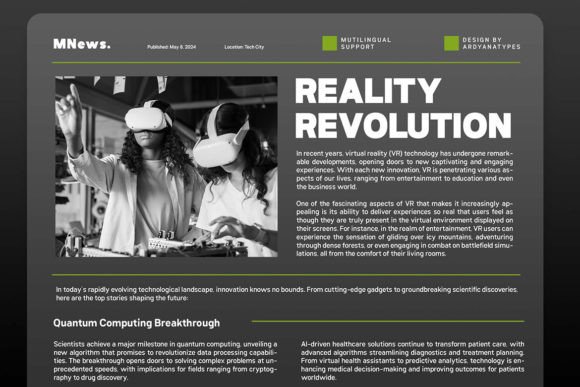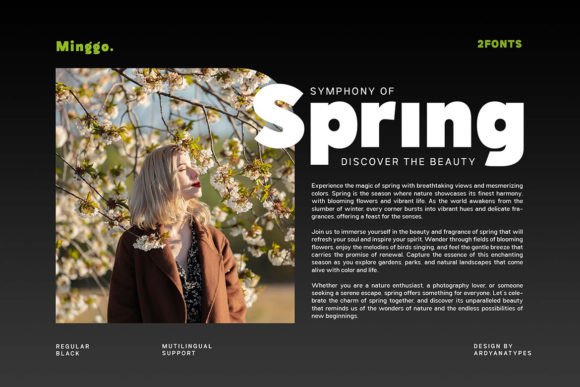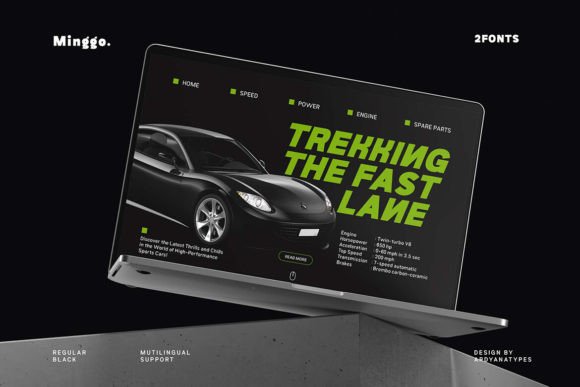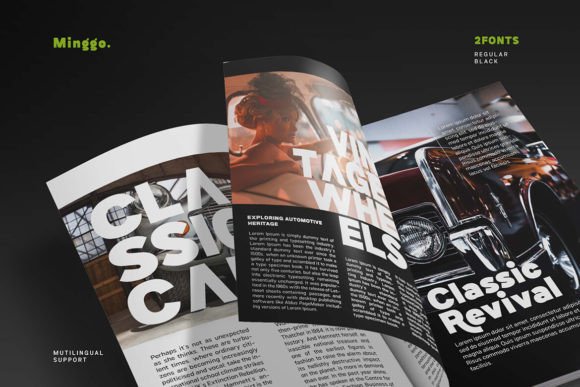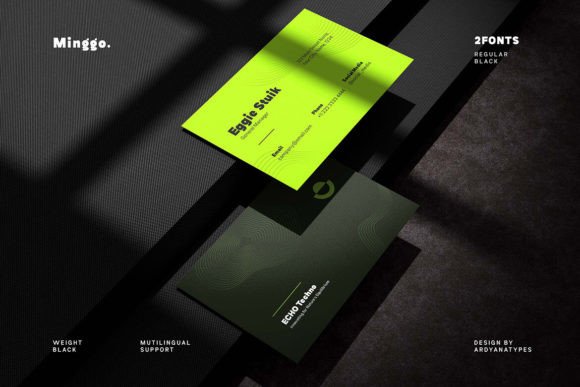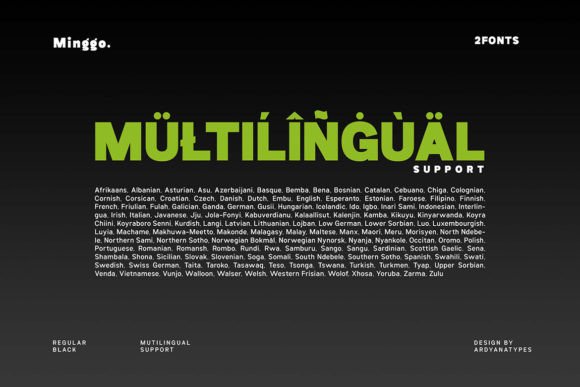
Introduction to Minggo Font
Have you ever been working on a creative project, pouring your heart and soul into it, only to be held back by a mediocre font that just doesn’t cut it? We’ve all been there. But what if you could unleash your full creative potential with a font that’s not only stunning but also incredibly versatile? Enter the Minggo Font, a bold and elegant sans-serif font designed to take your designs to the next level.
As a valuable design resource, the Minggo Font offers a wealth of features that make it an indispensable tool for any designer. With its high-quality design and transparent background, it’s perfect for creating a professional and modern impression in any project, from book titles and movie posters to business cards and logos.
Whether you’re looking for a free download or a reliable design partner, the Minggo Font is ready to be your go-to choice for any creative project. With its rich OpenType features and multilingual support, the possibilities are endless.
Key Features of Minggo Font
- Unique, modern design with a transparent background for versatility
- Perfect for designers and artists looking for a unique and high-quality design element
Honest Review: Minggo Font
I recently had the opportunity to work with the Minggo Font, and I must say, it was a pleasant experience. This high-quality font is perfect for any creative project that requires a clean and modern look.
One of the things that stands out about the Minggo Font is its transparent background. This makes it easy to use as a design resource, as it won’t interfere with the background of your project. I also appreciate that it’s free to download, which is a big plus for designers on a budget.
Here are some of the things that work well with the Minggo Font:
- ✨ Clean and modern design
- ✨ High-quality font that’s perfect for print or digital use
- ✨ Transparent background makes it easy to use as a design resource
However, I did encounter some limitations with the Minggo Font:
- ⚠️ Limited character set, which may not be suitable for projects that require a wide range of characters
- ⚠️ May not be suitable for projects that require a bold or dramatic font
Overall, I’m impressed with the Minggo Font. It’s a great design resource for any creative project, and its transparent background makes it easy to use as a design element. While it may have some limitations, I think it’s a great option for designers who are looking for a clean and modern font.
Tips for Getting the Most Out of Minggo Font
To get the most out of Minggo Font, use it in conjunction with other design elements to create a visually appealing design. Experiment with different font sizes and styles to add depth and interest to your project.
Minggo Font is commonly used in creative projects such as:
1. Infographics.
2. Brochures.
3. Posters.